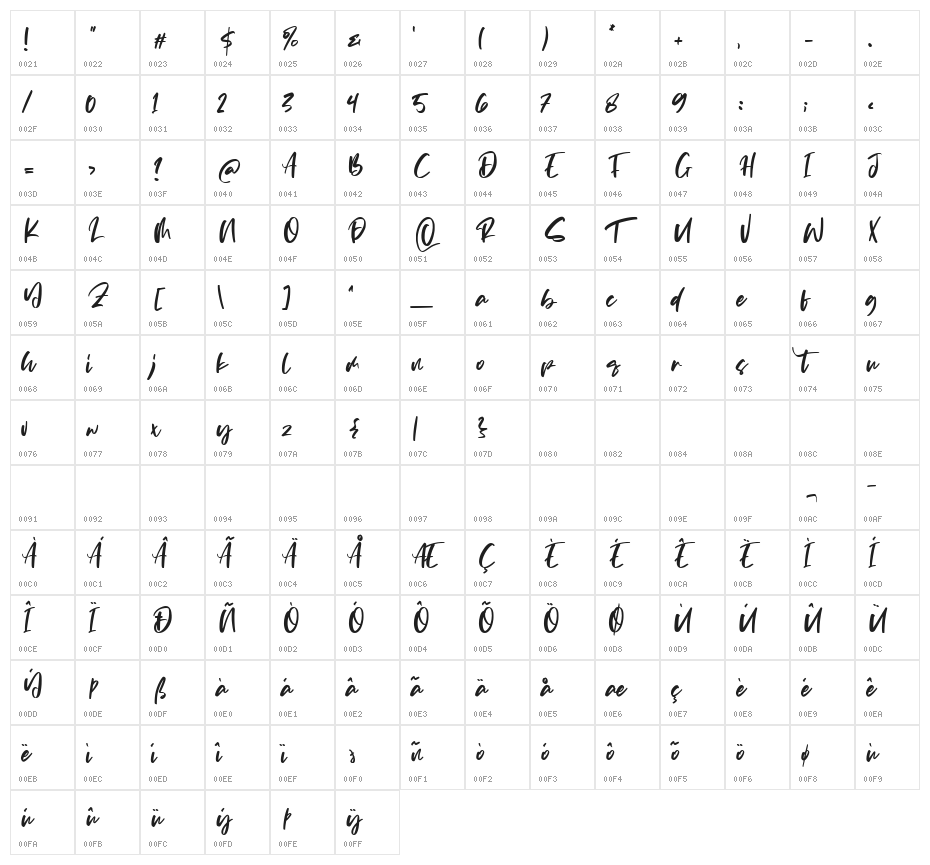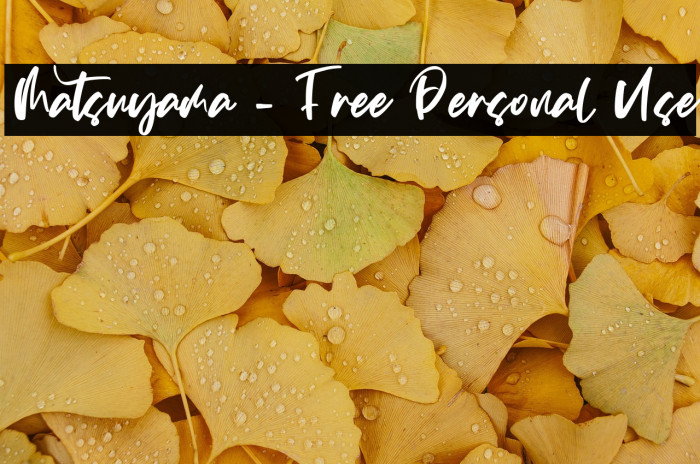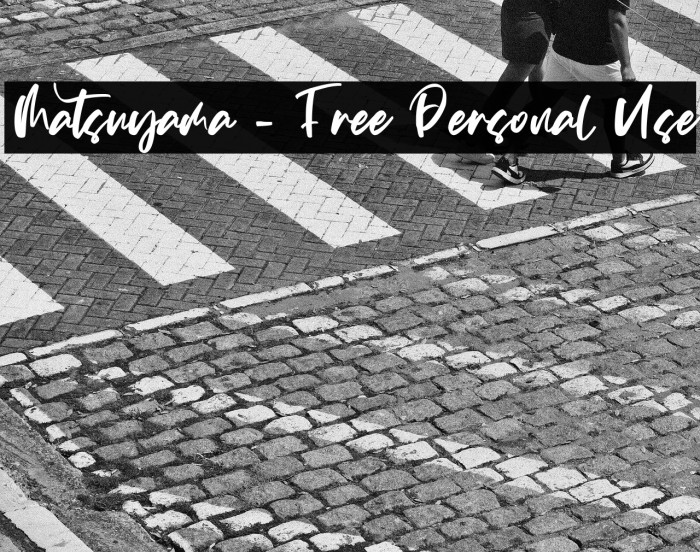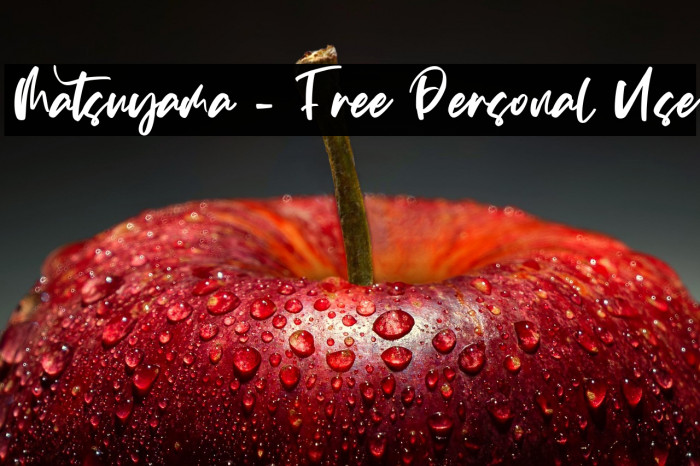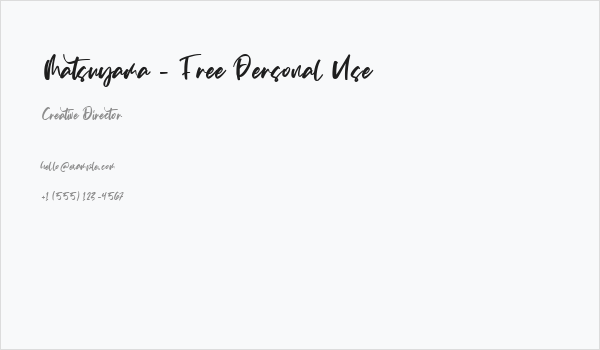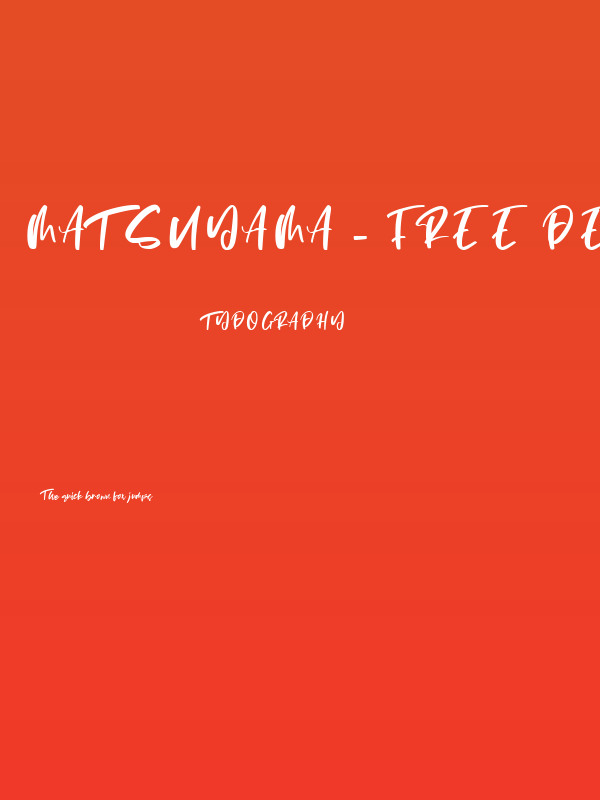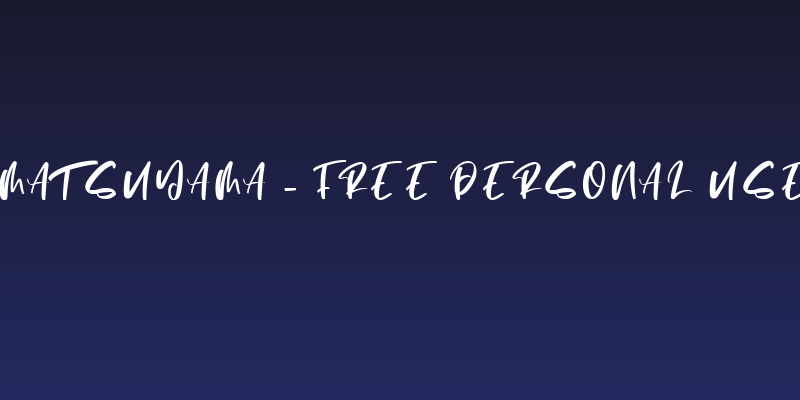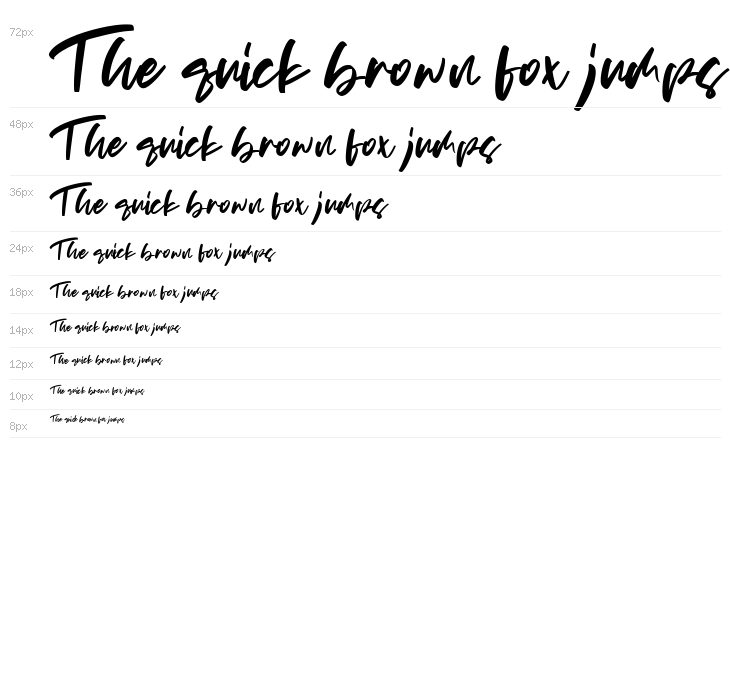
Matsuyama - Free Personal Use Font
This font features a dynamic and expressive handwritten style, characterized by fluid strokes and a casual, yet sophisticated appearance. The uppercase letters exhibit a bold and confident presence, while the lowercase letters maintain a consistent flow with slightly exaggerated curves. Numbers and special characters are crafted with the same artistic flair, ensuring a cohesive look across all text. The overall design is both modern and playful, making it suitable for a variety of creative projects. Its unique style captures attention and adds a personal touch to any design.
Use CaseLogos, Headlines, Invitations
Proposed ProjectsIdeal for branding, invitations, social media graphics, and creative projects that require a personal touch.